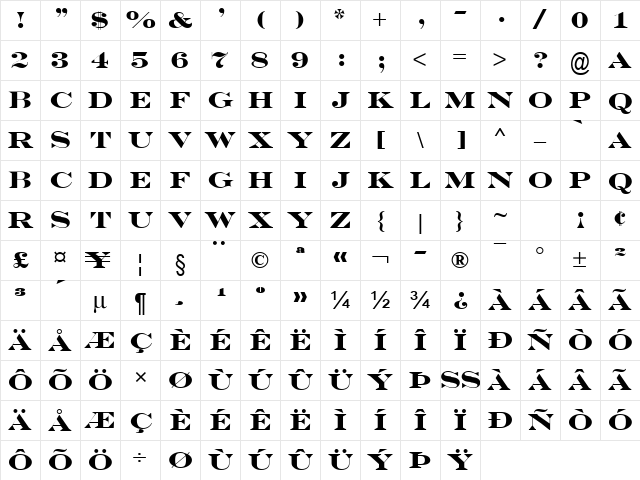
Complete Engravers MT Bold glyph index. Displaying only characters natively supported by Engravers MT Bold font.
Engravers MT is a composed and adaptable typeface that performs quietly and consistently across a wide range of design contexts. Its bold stroke weight gives it real presence on the page.